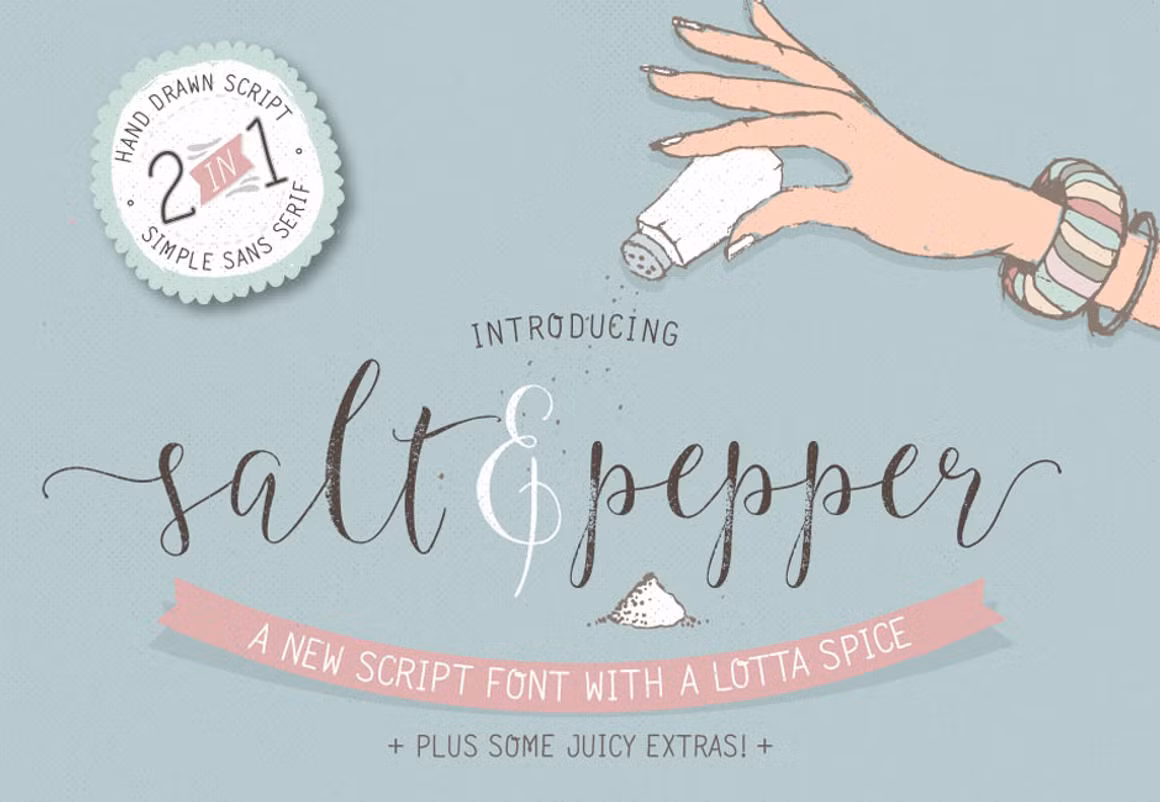
Salt & Pepper: Whimsical Font Family, crafted by Lisa Glanz, is a delightfully hand-drawn font duo that includes a smooth script and a gritty companion version. This duo not only simplifies font pairing but also delivers a full creative toolkit, featuring ornaments, swashes, alternatives, and over 60 bonus graphic assets.
Perfect For
– Invitations & greeting cards –
– Hand-lettered logos & branding –
– Planner layouts & printables –
– Social media visuals & banners –
– DIY projects & whimsical print designs –
Font Features
– Two complementary styles: smooth script + gritty script –
– Decorative alternates, ligatures, and swashes included –
– Professionally crafted for cozy, handcrafted appeal –
Font Style: Hand‑drawn Script Duo
Font Designer Name: Lisa Glanz
Publisher Name: Lisa Glanz